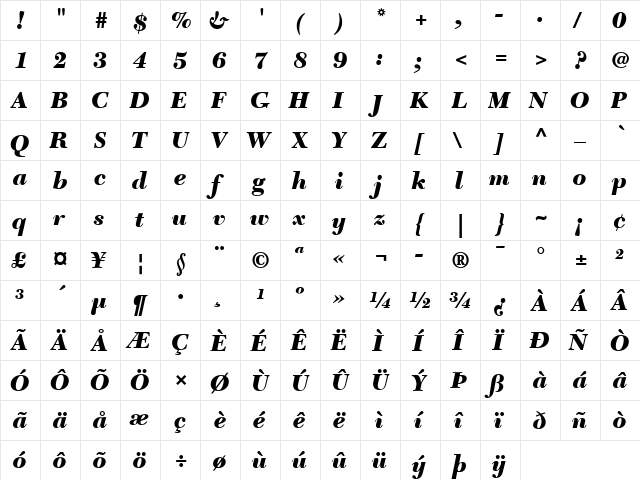
NewCaledonia LT SemiBold Bold Italic
Design Context for NewCaledonia LT SemiBold Typeface
NewCaledonia LT SemiBold is a composed and adaptable typeface that performs quietly and consistently across a wide range of design contexts. The slanted form adds forward momentum and visual energy. The heavy weight commands attention and anchors typographic hierarchies.
Pro Tip: Try NewCaledonia LT SemiBold for annotation and caption copy alongside an upright companion — the contrast in angle creates a dynamic but ordered typographic system.